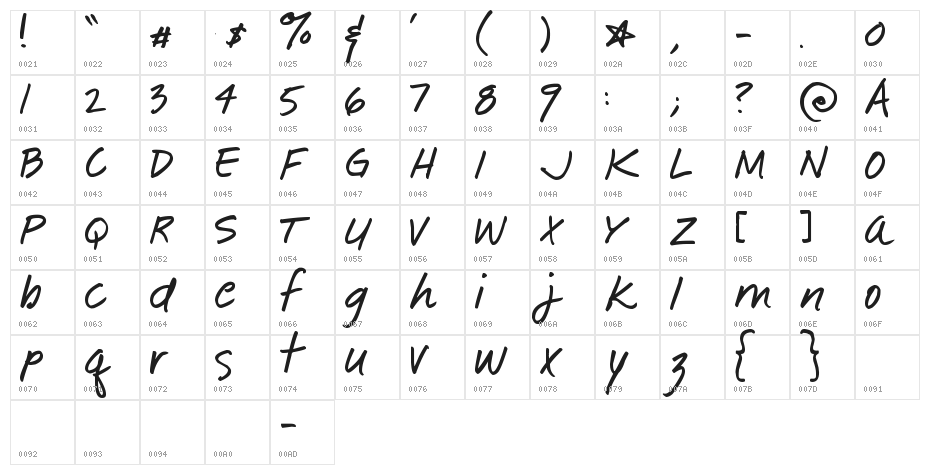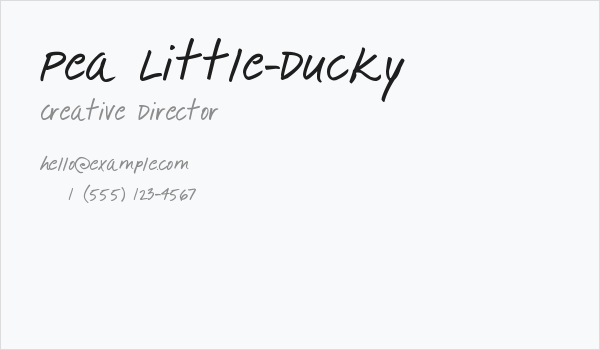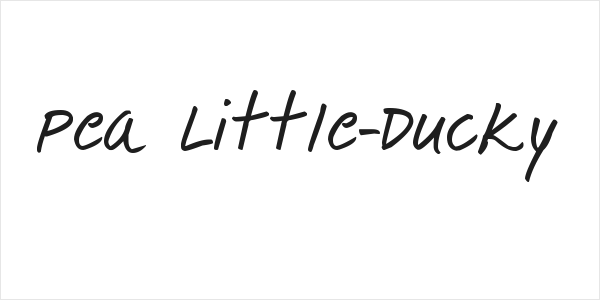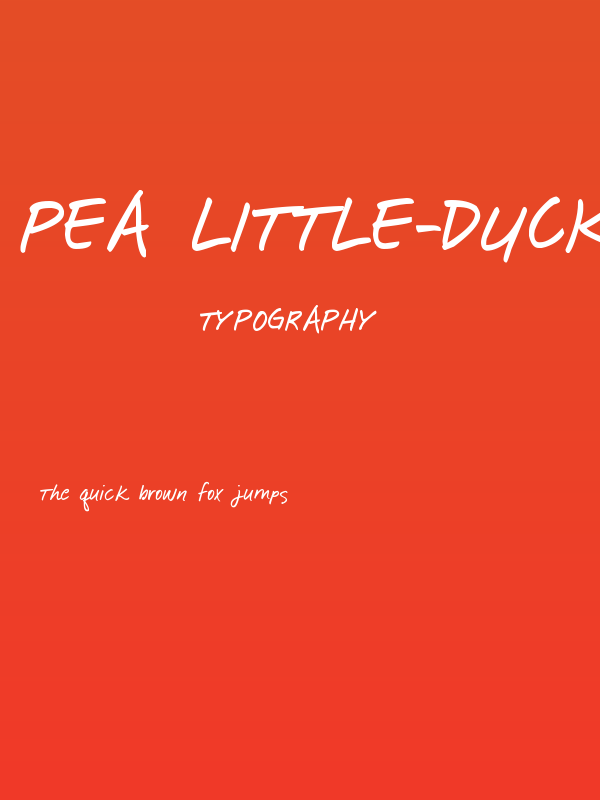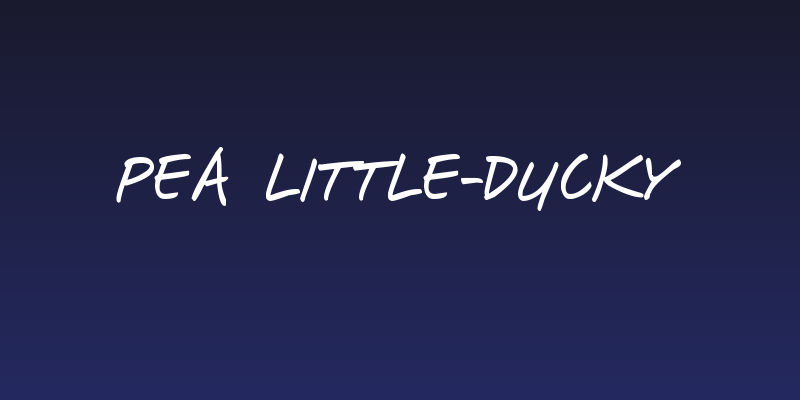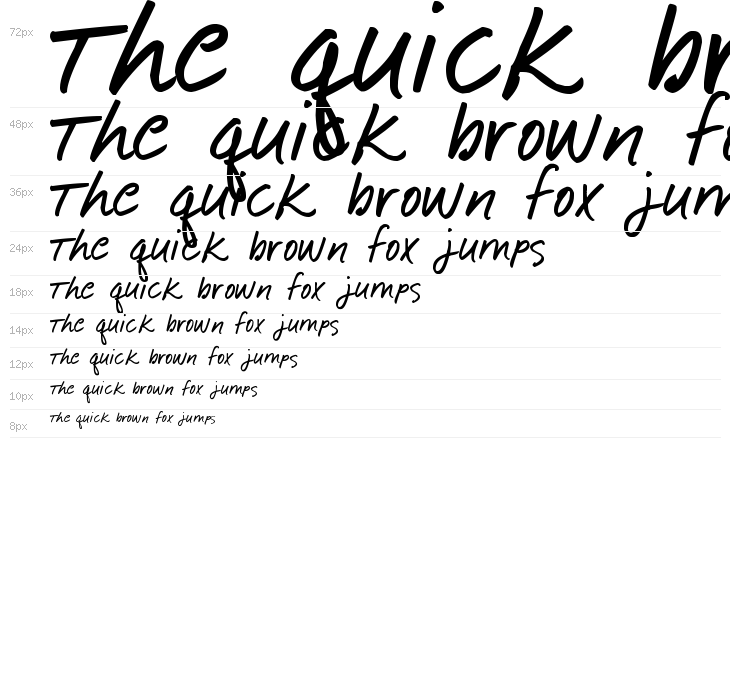
Pea Little-Ducky Font
Pea Little-Ducky Description
This font features a playful, handwritten style that exudes a casual and friendly vibe. The letters are slightly slanted, adding a dynamic and informal touch. The strokes are consistent, with a medium thickness that ensures readability while maintaining a personal feel. The characters are well-spaced, providing a balanced look that is easy on the eyes. This font includes a full set of uppercase and lowercase letters, numbers, and a variety of special characters, making it versatile for different uses. Its handwritten nature gives it a unique charm, suitable for projects that require a personal or creative touch.
| Proposed Projects | Ideal for greeting cards, personal blogs, children's books, and creative branding. |